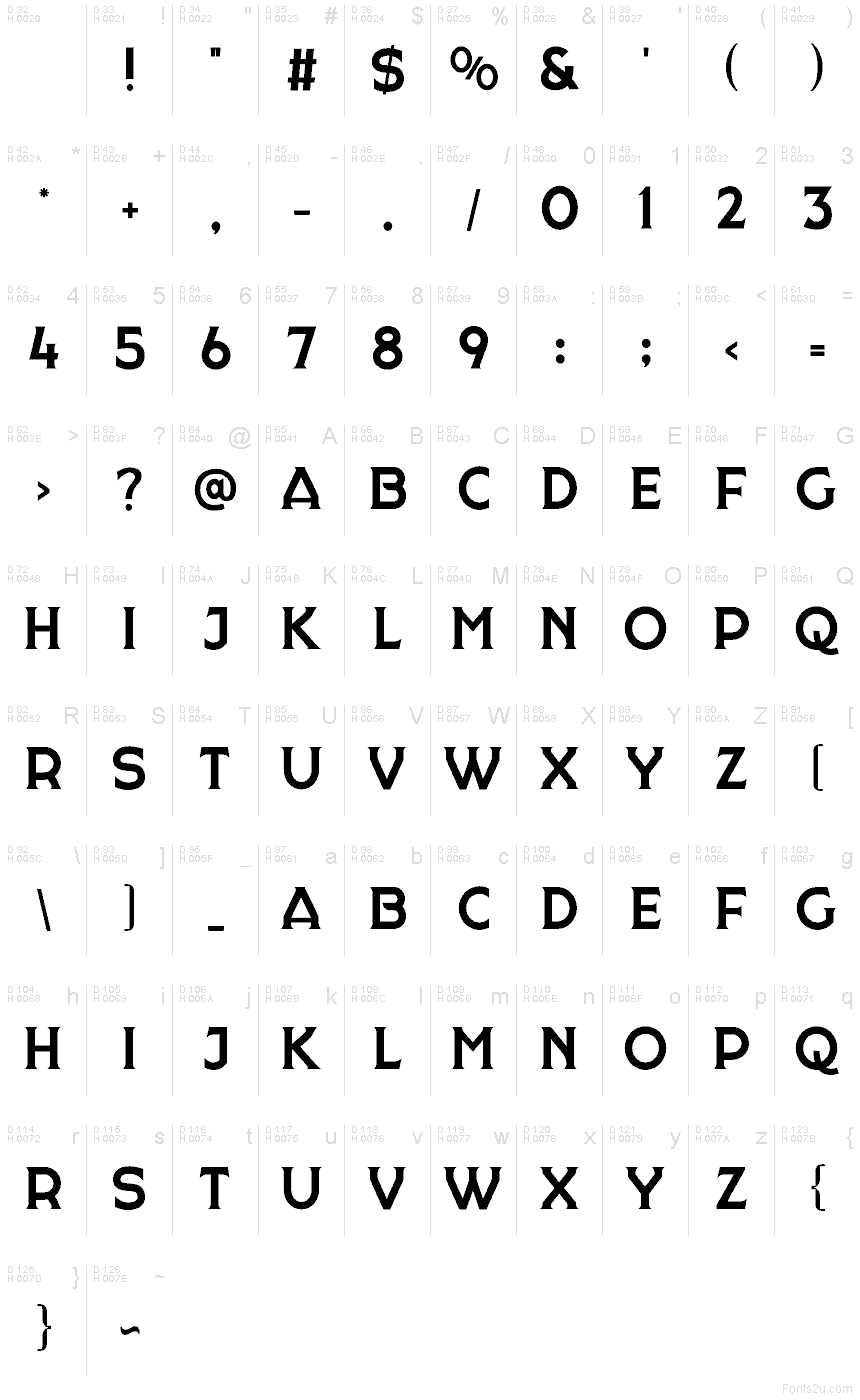
Stockport Serif font by Trequartista Studio is a free decorative display serif font. Built with chiseled wedge serifs and smooth, rounded counters, it feels both carved and polished-like an Art Deco poster cut from stone. The tight rhythm and strong verticals give headlines a firm, architectural presence while the soft curves keep it approachable within the Stockport family.
Using Stockport Serif, bold titles lock up cleanly and carry weight on posters, book covers, event branding, packaging, signage, and editorial features. This free font thrives when set large; add a touch of tracking for airy elegance or keep it snug for punch. Pair it with a crisp geometric sans to let the sculpted serifs do the talking.